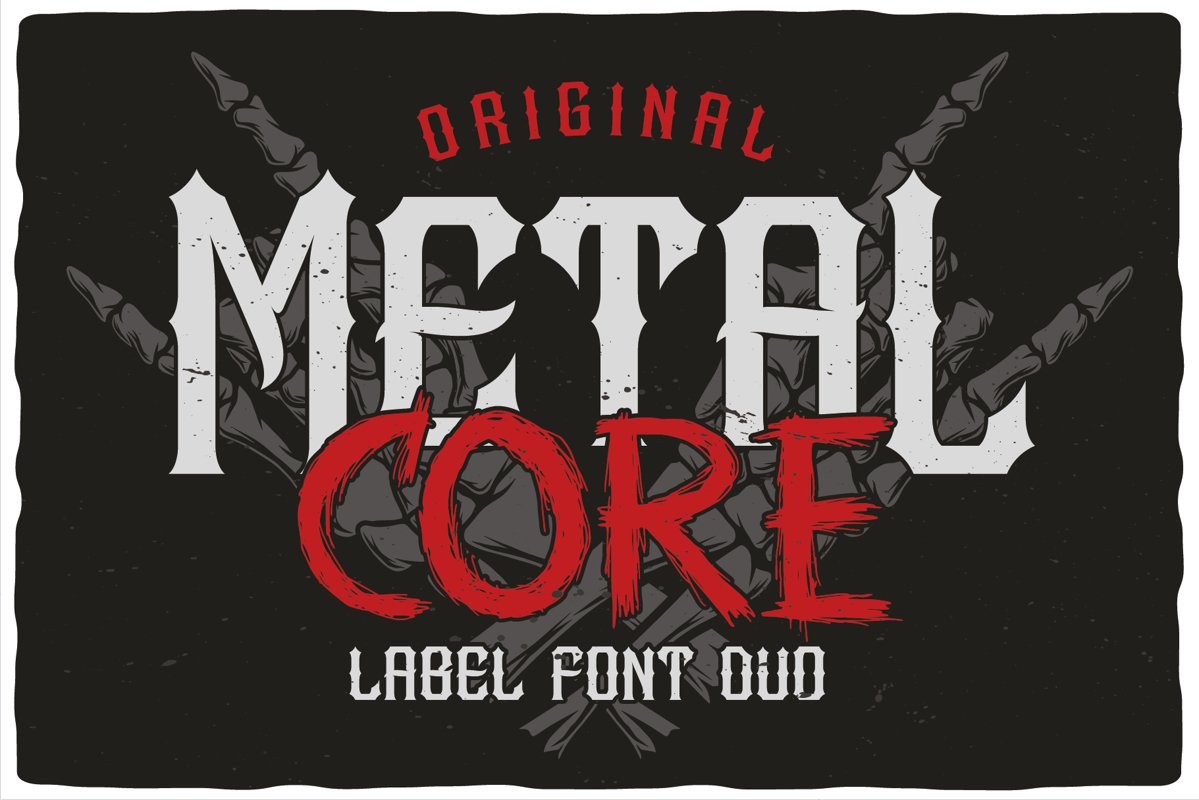
MetalCore Font Duo
MetalCore-Rough
MetalCore-Nerve
MetalCore-Clean
Introducing a font duo named MetalCore. This strong and nervous typefaces is perfect for lettering on vintage music (and not only for these) style labels, posters, t-shirts, logo etc. This set contains also bonus: 8 editable sample designs for t-shirts or posters.Features:
• Three fonts in complect. Clean, Rough and Nerve.